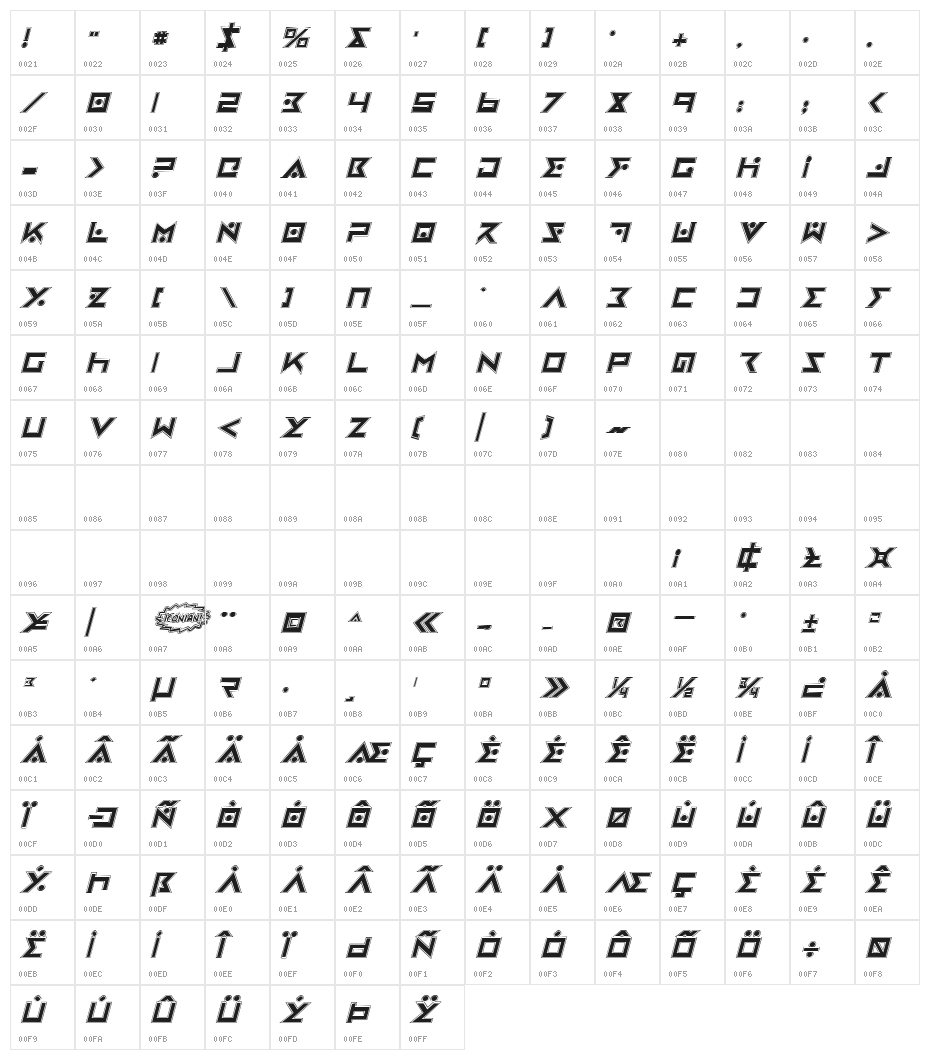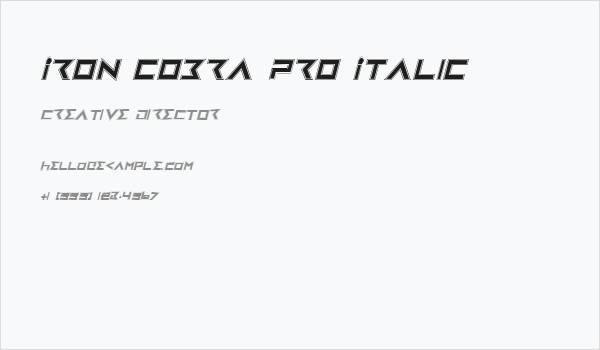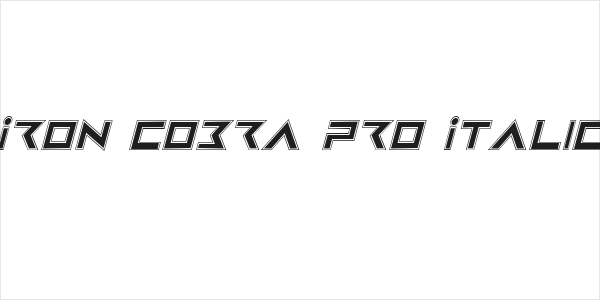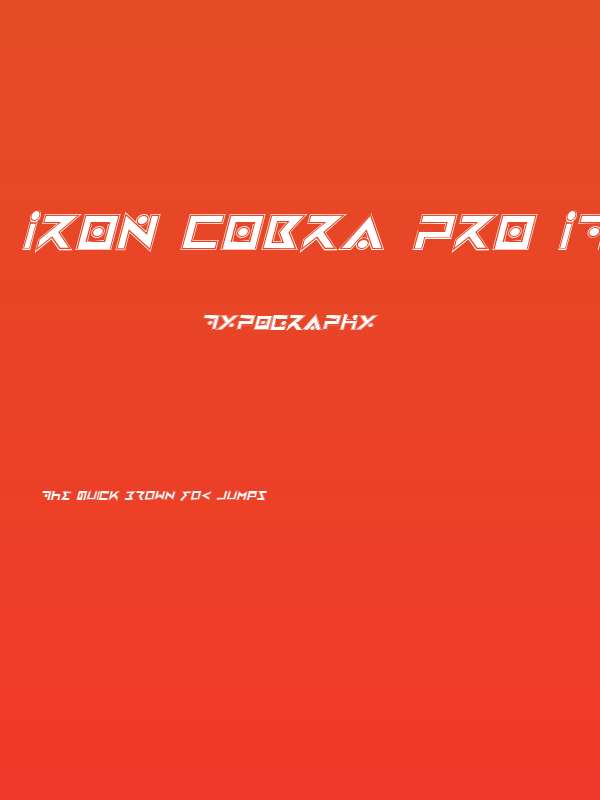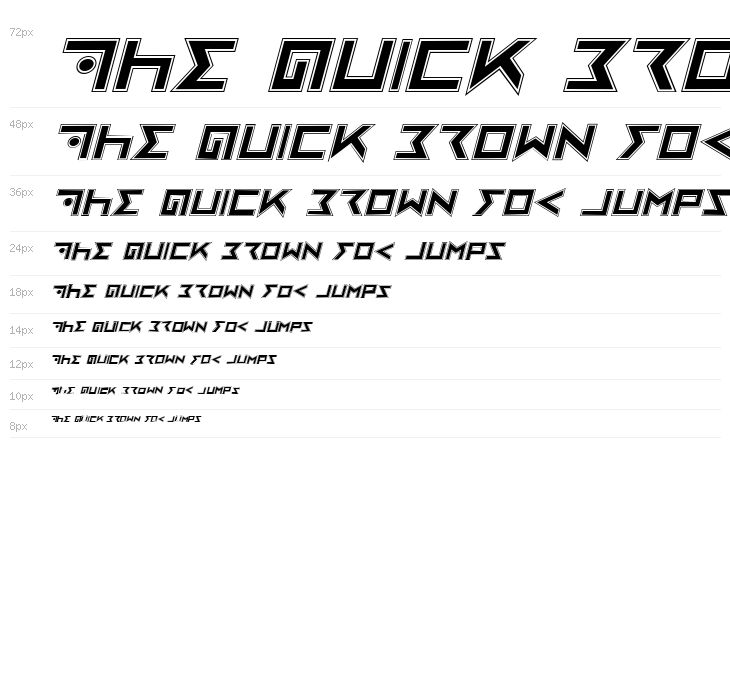
Iron Cobra Pro Italic Font
Iron Cobra Pro Italic Description
This font features a bold, futuristic design with sharp angles and geometric shapes. Each character is outlined, adding a sense of depth and dimension. The uppercase and lowercase letters maintain a consistent style, emphasizing angularity and symmetry. Numbers and special characters follow the same design principles, making them cohesive with the alphabet. The overall look is dynamic and edgy, suitable for projects that require a modern and striking appearance. The italic style adds a sense of motion, enhancing its futuristic appeal.
| Proposed Projects | Ideal for sci-fi themed designs, video game titles, tech branding, and modern posters. |